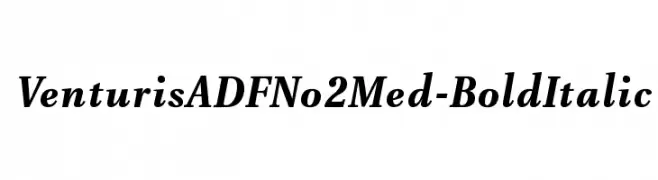
A bold, italic serif font with a classic and elegant style.
An elegant serif font with a classic italic style, perfect for formal use.
A classic serif typeface with balanced proportions and medium weight.
A bold, classic serif font with strong strokes and pronounced serifs.
A bold, italic serif font with a classic and elegant style.
An elegant serif font with a classic italic style and refined appearance.
A classic serif font with elegant strokes and refined proportions.
A classic serif font with elegant, refined letterforms and sharp serifs.
A classic serif font with bold strokes and high contrast, ideal for elegant and formal designs.
A classic serif font with bold strokes and elegant curves.